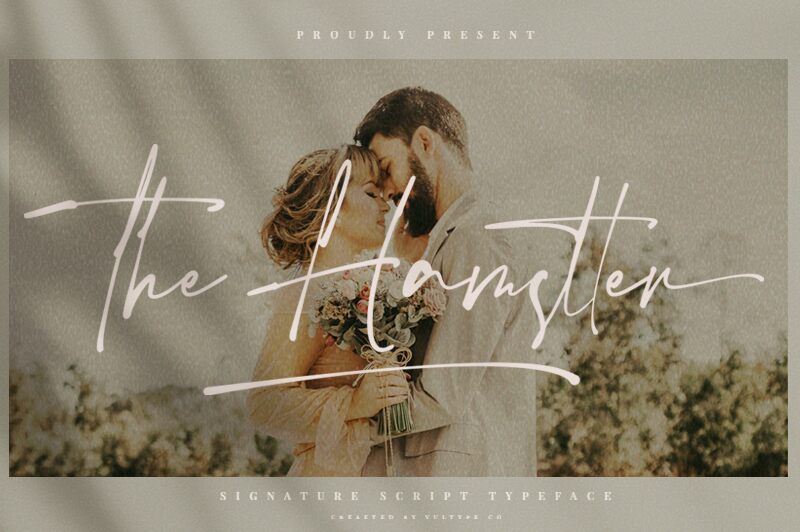
The Hamstter
The Hamstter font, designed by Vultype, is a handwritten signature free font with an elegant and modern script style. Its artistic flair and flowing design give it a signature style with expressive appeal ideal for contemporary applications in branding and invitations.
Perfectly suitable for titles, posters, wedding invitations, logotypes, ads, packaging designs, photography projects. Websites looking to add an aesthetic edge can employ it as well as magazines beginner’s covers or coaches that want their name on products alike!